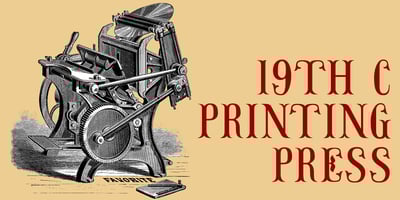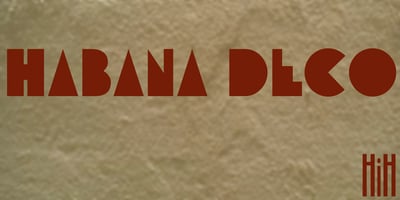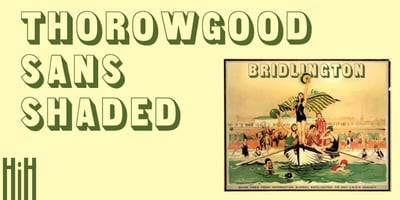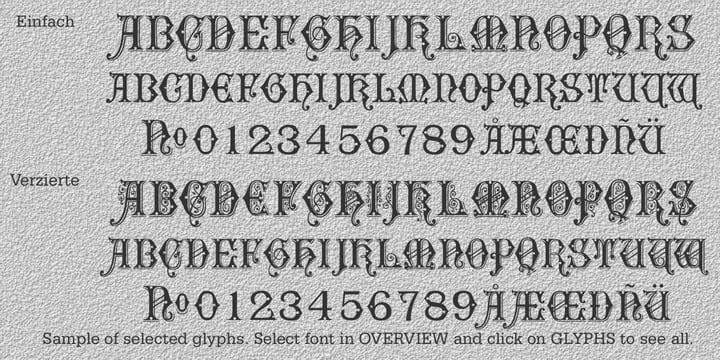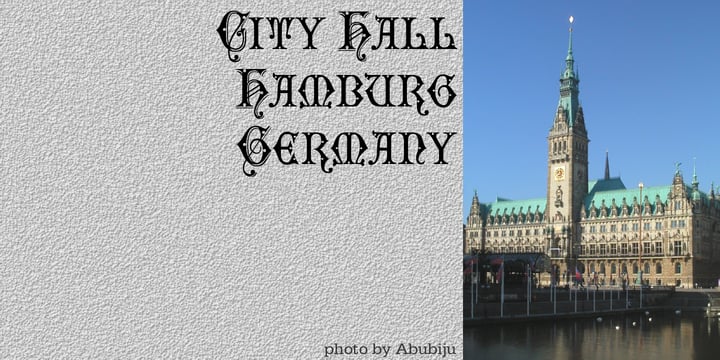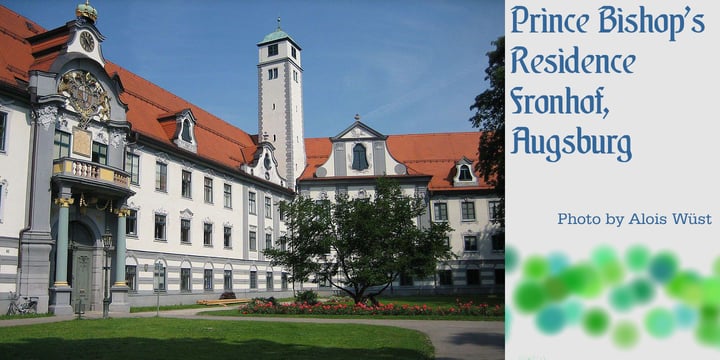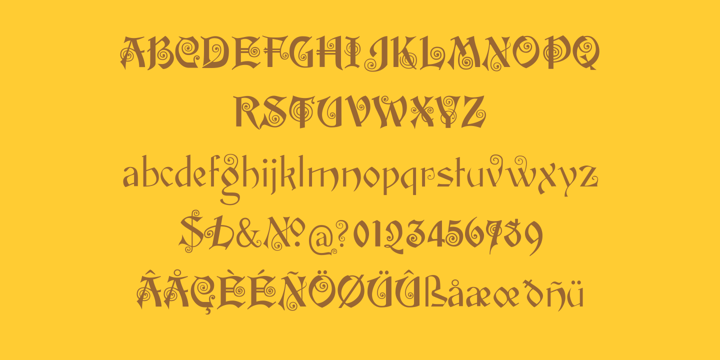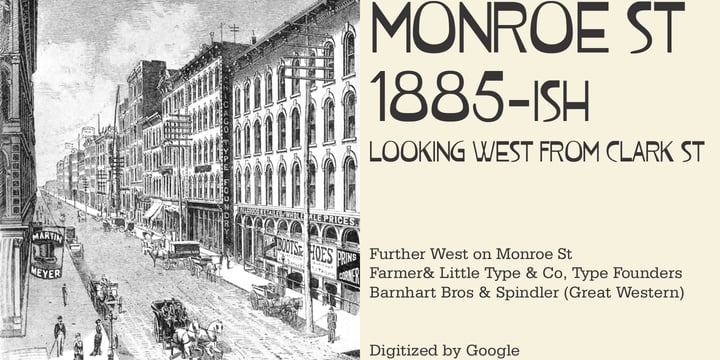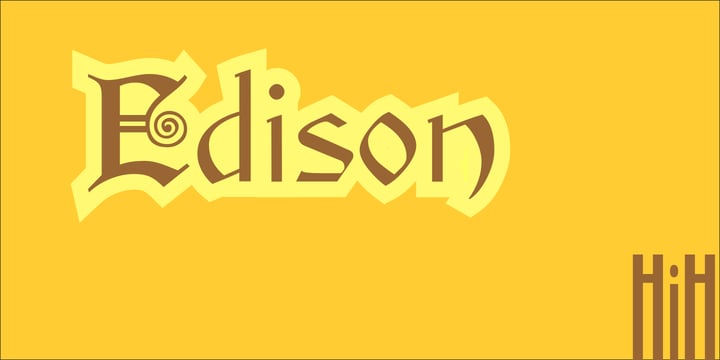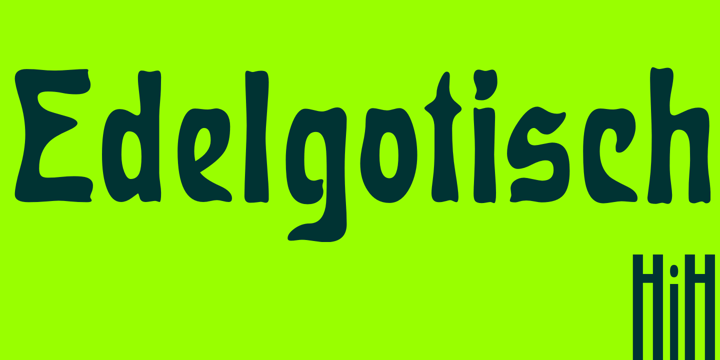
HiH
HiH stands for Hand-in-Hand because I couldn’t do it alone — any of it. I am as interested in history as I am in typefaces and I firmly believe that no typeface is an island, either. By that I mean, every typeface has a context and a history and is a product of some person(s) creativity and effort. Since alphabets have the purpose of written communication, a typeface cannot be TOTALLY original or it would be useless. A typeface must, at minimum, resemble other typefaces that already exist. If a reader cannot recognize any of the letterforms, the reader will not be able to read any of the words formed by those letters and there will be no communication.
Over time, I evolved a growing dislike for the practice, that goes back to the earliest foundries, of copying and renaming fonts without attribution, as if each look-alike font was the product of original and independent effort. I found it confusing and frustrating, so I started off giving back the original name some of the fonts I had accumulated. Next, I became dissatisfied with fonts that were missing punctuation or special characters that were (or should have been) part of the original design, etc. I started adding them as I needed them. Then I found myself re-designing some of the non-alphabetic characters. I think all of the characters should look like they belong with the font and not hauled out of the trash someplace. For example, I think a blackletter typeface should have a period that reflects the same broadpen characteristics as the letterforms. Who draws perfect circles with a broadpen nib? On the other hand, why would anyone want math symbols with a copperplate script? That is like blackletter small caps or a swash version of a geometric sans-serif. You get the picture.
And then there are all the really great Victorian & Art Nouveau typefaces that I could not find in digital form. Personally, I think the 19th century (more exactly, from 1815 through 1914) is the most exciting in the history of typography — the teenage years, messy, conflicted and full of the discovery of the raw power being unleashed. There was no escape. I had to make my own. I hope you like them and find them useful.
Character Sets
We use a standard Windows 3.1 character set with 213 visible characters or glyphs and 256 total character slots (some reserved for program functions and not visible) for display typefaces. We think Unicode is really great for text faces, but often overkill for display purposes. We use Fontographer 4.1 and like to see the entire character set displayed on a single screen — not possible with Unicode. We frequently deviate from the standard ASCII set, which we believe includes some silly choices. Don’t look for a “logical not” in our faces. For diacritical marks (accents), we generally include the acute (´), grave (`), dieresis or umlaut (¨), circumflex (ˆ), tilde (˜), cedilla (¸) and macron (¯). Most of our fonts are revivals. Priority is given to the accents and special characters needed to set the native language of the original designer. Bringhurst lists 59 letter forms in Roman- or Latin-based alphabets alone (exclusive of Cyrillic, Greek, Hebrew, etc). For example, there are four Os: the standard O, the slashed O, the horned O, and the open O. When you add in the various accent combinations, from O-acute for to open-O-ogonek, you wind up with a total of forty variations on the letter O alone. The old saw that you cannot be all things to all people obviously applies here. Note: for the Austro-Hungarian Monarchy, the official administrative languages were German and Hungarian. While Czech, Polish, Serbo-Croatian, Slovenian were important regionally, it was a major political issue that they did not have official standing. (There were periods when their use was actually forbidden.) We try to include ligatures and alternate characters that were part of the original design. We will also include special characters or dingbats when we deem it appropriate to do so. There is a wealth of printer’s ornaments to be found in specimen books. Many have already been digitized in raster form by Dover and others and are available in inexpensive collections on CD.Decorative Initials
As a rule I try to match decorative initials with appropriate small caps, if available, or with a matching or harmonious lowercase. While the lowercase or small caps will be supplied with accents, the decorative initials will not be, with the sometime exception of C-cedilla and the N-tilde. According to The Chicago Manual of Style, French, Portuguese and Spanish may be set without accents on capitalized vowels; and German can set by using Ae, Oe & Ue in place of the umlauted capitals. Italian varies: accents required for display headlines, but not for text. Æ and Œ will generally not be included in decorated form unless part of the original design.Selected Bibliography
- Bringhurst, THE ELEMENTS OF TYPOGRAPHIC STYLE (Hartley & Marks, Vancouver [near where author lives] 2004. ISBN 0-88179-206-3 (pbk). Incomparable must-have book on disciplined page layout and typography with a strong historical perspective. Bringhurst is a major critic of parochial typography.
- Gray, NINETEENTH CENTURY ORNAMENTED TYPEFACES (University of California Press, Berkeley & LA 1976) ISBN 0-520-03074-5 Out of print. Find it used and buy it. Est $40. Originally published by Oxford University Press in 1938.
- Jasper, Berry & Johnson, ENCYCLOPAEDIA OF TYPEFACES, 4th Edition (Cassell & Co., London 2001); ISBN 1-84188-139-2 (pbk). Note: earlier editions are also worth acquiring on used book market.
- Lewis, TYPOGRAPHY DESIGN AND PRACTICE (Taplinger Publishing, NYC 1978) ISBN 0-8008-7922-8 (pbk). Useful discussion on artistic developments as they impacted display typography from 1800. Draws insightful connection between blackletter faces and sans-serifs.
- McGrew, AMERICAN METAL TYPEFACES OF THE TWENTIETH CENTURY, 2nd Edition (Oak Knoll Books, New Castle, Delaware 1993); ISBN 0938768-39-5 (pbk). Includes typefaces from 19th century that continued to be cast in the 20th century, like Pekin.
- Petzendorfer, TREASURY OF AUTHENTIC ART NOUVEAU ALPHABETS, DECORATIVE INITIALS, MONOGRAMS, FRAMES AND ORNAMENTS (Dover Publications, New York 1984); originally published by Julius Hoffmann of Stuttgart in 1903 under the title SCHRIFTENATLAS NEUE FOLGE: EINE SAMMLUNG VON ALPHABETEN INITIALEN UND MONOGRAMMEN ZUSAMMENGESTELLT VON HOFRAT L. PETZENDORFER. ISBN 0-486-24653-1 (pbk).
- Solo, THE SOLOTYPE CATALOG OF 4,147 DISPLAY TYPEFACES (Dover Publications, New York 1992) ISBN 0-486-27169-2 (pbk). As title indicates, book was intended as a commercial catalog and not a historical record. Because of practice of renaming typefaces to support that purpose and the lack of any further information on where the typefaces were collected, the book is less useful than it might have been. It would be wonderful if an accompanying database was compiled. Many faces simply can't be found elsewhere.